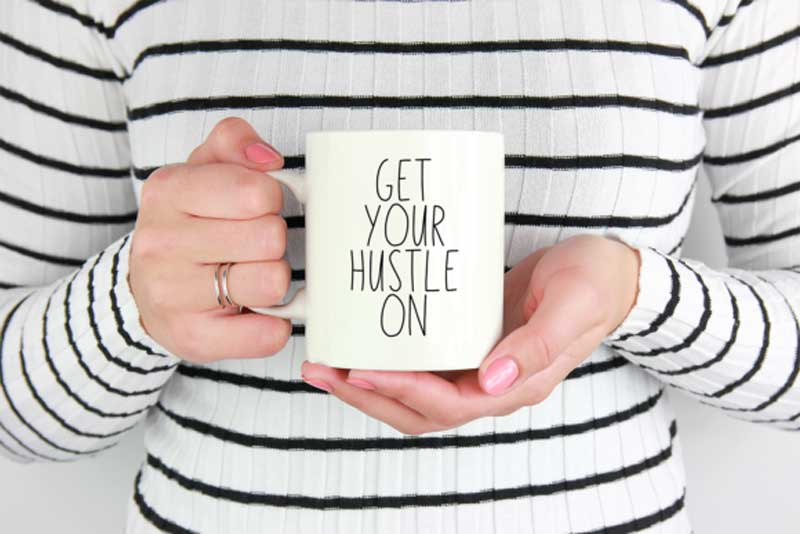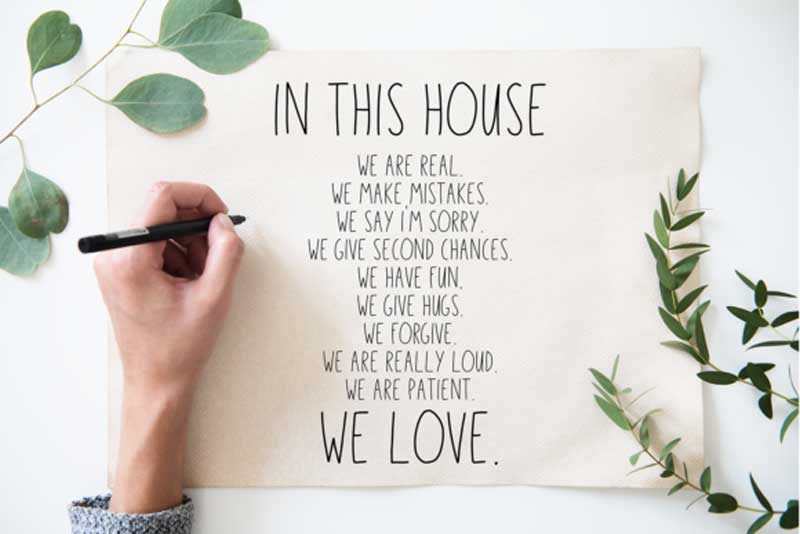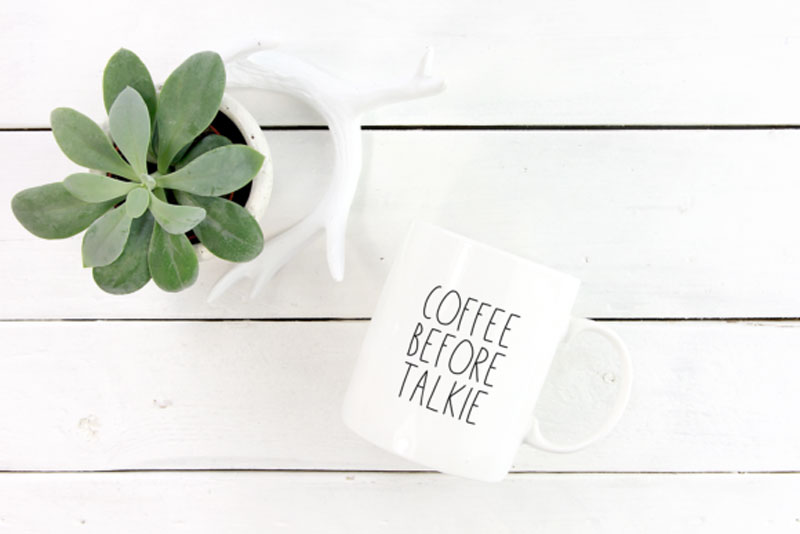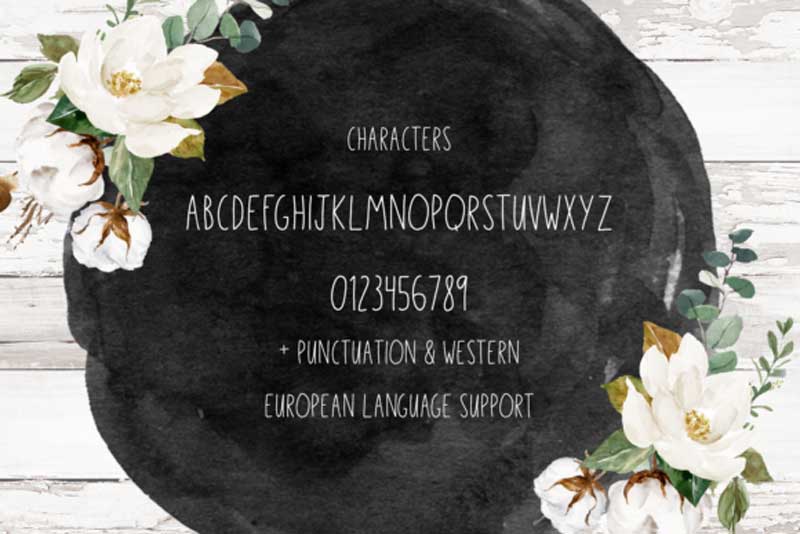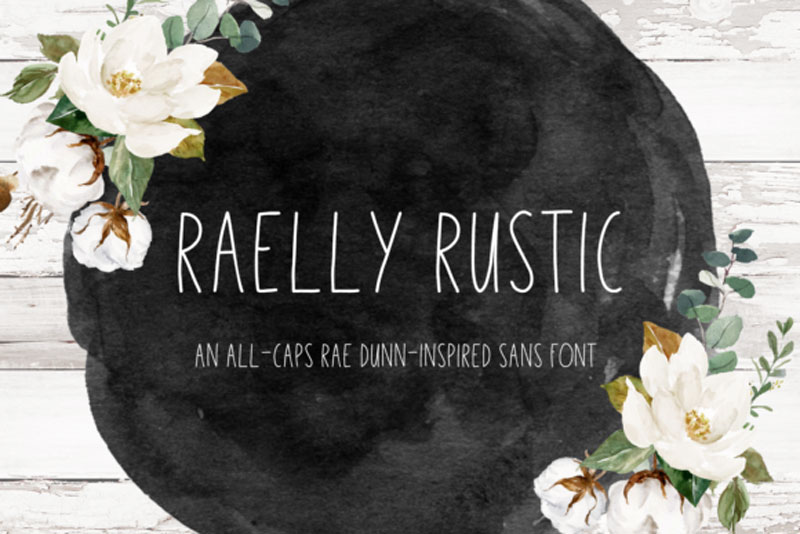
Raelly Rustic Font
Raelly Rustic is a magical sans serif font carefully created with a touch of elegance. This font is PUA encoded which means you can access all of the amazing glyphs and swashes with ease. Also checkout Sadist Font.